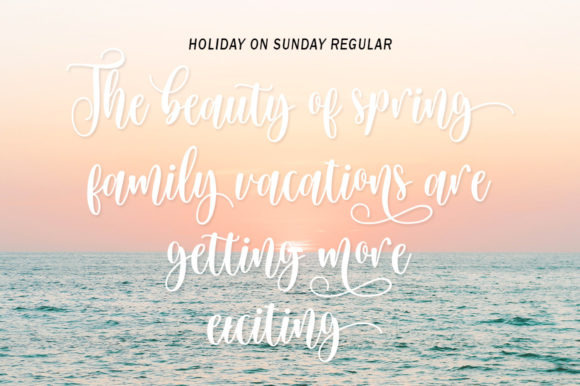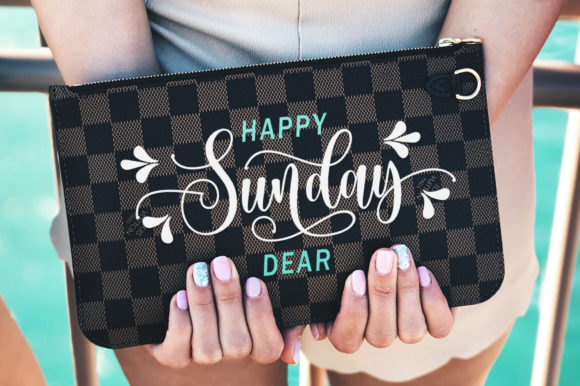
Holiday on Sunday Font
db-ku.com - Script & Handwritten -- Holiday on Sunday is a romantic and sweet calligraphy typeface with characters that dance along the baseline. It will add a luxury spark to any design project that you wish to create! This font is PUA encoded which means you can access all of the amazing glyphs and ligatures with ease!